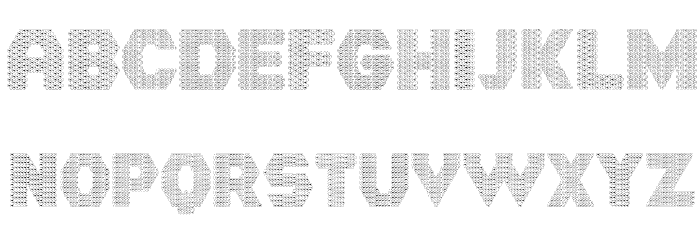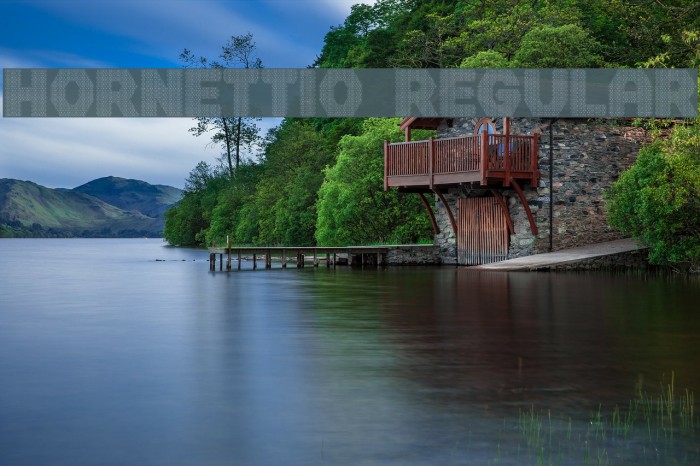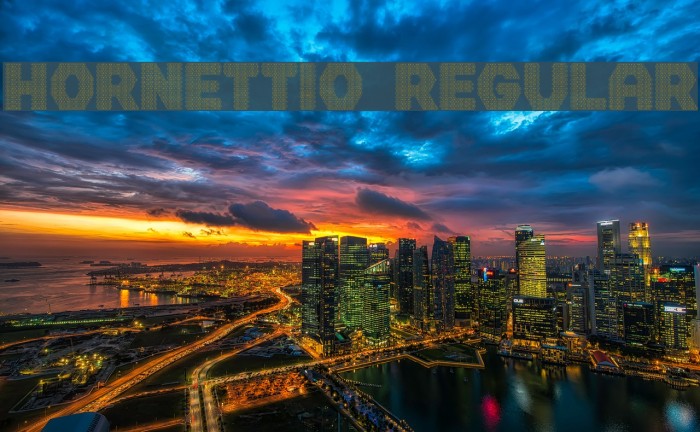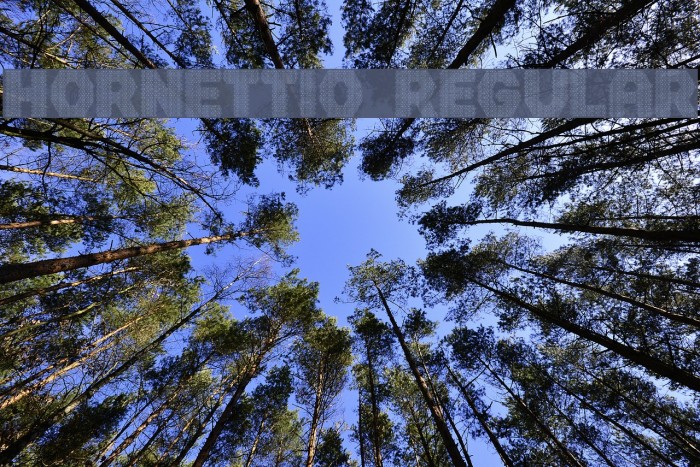
Hornettio Regular Font
This font features a unique, textured design that resembles a honeycomb pattern, giving it a distinct and eye-catching appearance. The characters are bold and blocky, with a geometric structure that adds a modern and industrial feel. The texture within each letter creates a sense of depth and intricacy, making it suitable for projects that require a standout visual element. The uppercase letters are uniform in height, contributing to a cohesive and structured look. This font is ideal for creative and artistic projects where a decorative and bold typeface is desired.
A bold, textured font with a honeycomb pattern, perfect for decorative projects.
- Proposed Projects: Ideal for posters, logos, branding, and any design requiring a bold, decorative font.